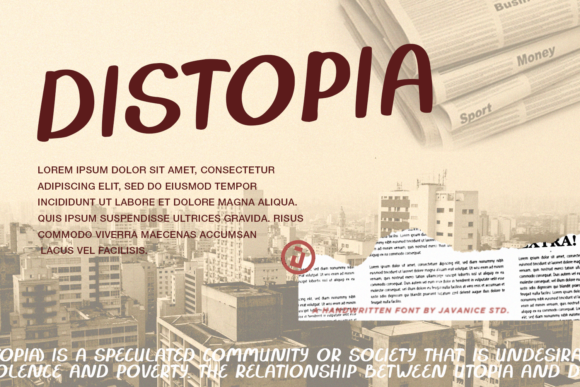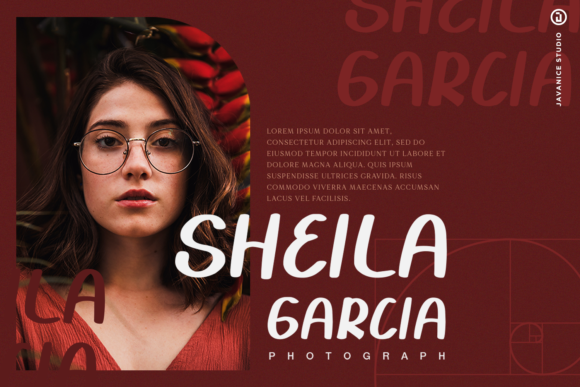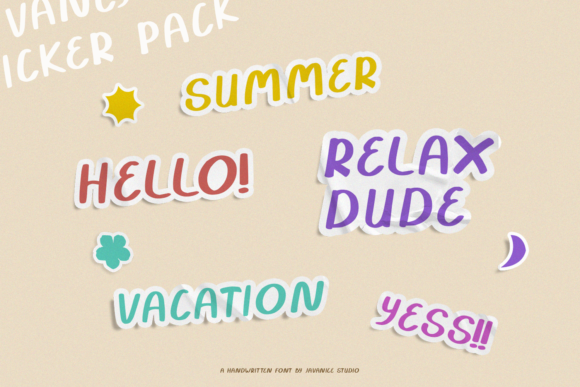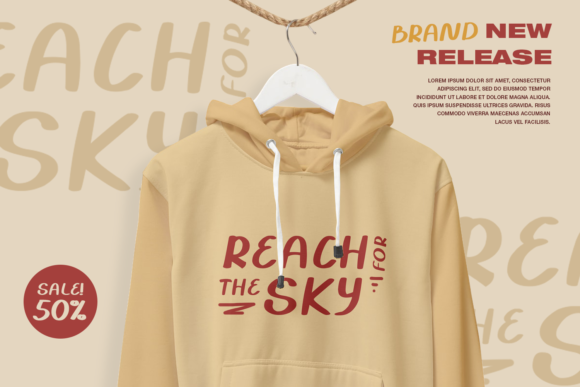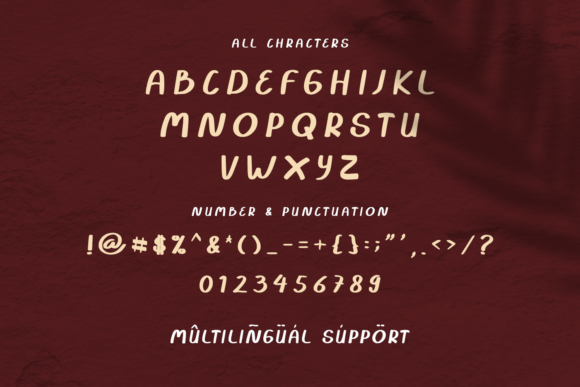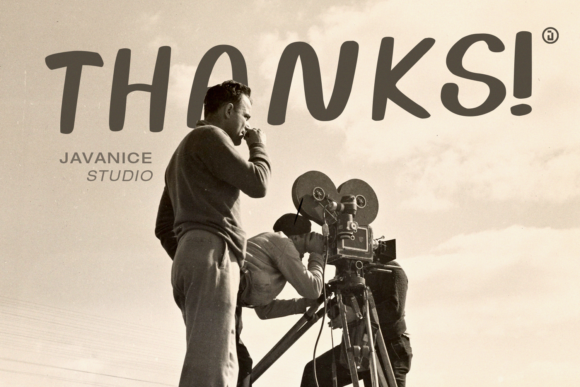
Introduction to Kuna Kuni Font
Kuna Kuni is a cool, paint brushed and casual handwritten font.
It will look extraordinary in a variety of informal contexts .
Key Features of Kuna Kuni Font
Why Choose Kuna Kuni Font?